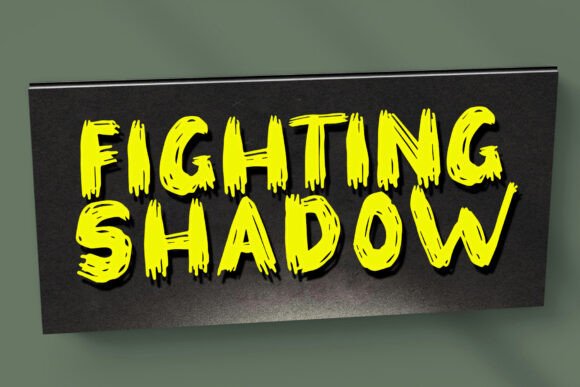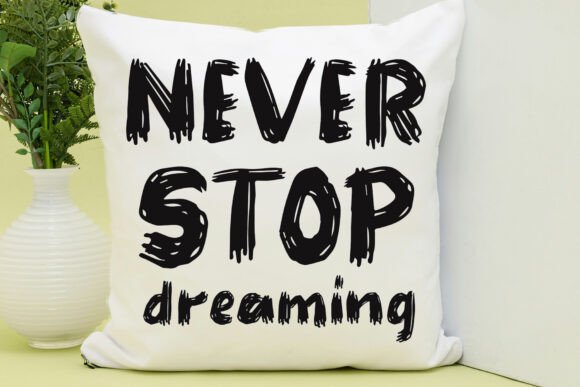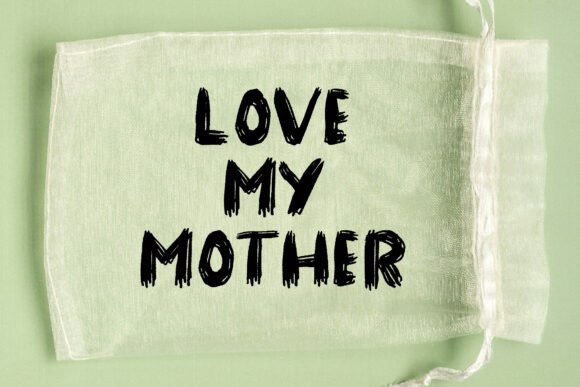
Introduction to Party Brush Font
Remember the feeling of getting lost in a sea of sketchbooks, pens, and paper as a child, letting your imagination run wild and unfettered? The Party Brush Font brings back that same carefree spirit, with its unique blend of classic charm and organic feel.
For designers looking to add a personal touch to their creative projects, this font is a treasure trove of inspiration. With its free download option and transparent background, it’s the perfect design resource to experiment with. Whether you’re working on a high-quality magazine layout or a quirky social media graphic, the Party Brush Font is sure to elevate your design game with its sophisticated yet playful vibe.
As a design enthusiast, you’ll appreciate the level of craftsmanship that has gone into creating this stunning font, making it a valuable addition to your design arsenal.
Key Features of Party Brush Font
- High-quality digital brush font with a playful, hand-painted design, perfect for creative projects and design resources.
- Includes a transparent background, allowing for easy customization and seamless integration into various design elements.
- Unique characteristics include subtle texture and imperfections, giving the font a organic, hand-crafted feel.
- Perfect for designers and artists working on creative projects, such as party invitations, social media graphics, and more.
Honest Review: Party Brush Font
As a designer, I’m always on the lookout for high-quality design resources to elevate my creative projects. Recently, I came across the Party Brush Font, and I’m excited to share my honest review.
What works well: ✨ The Party Brush Font is incredibly versatile, with a range of styles and weights that make it perfect for various design applications. The font is also highly customizable, allowing you to adjust the color, size, and spacing to suit your creative vision.
- High-quality design: The Party Brush Font is designed with precision and attention to detail, ensuring that it looks great in any format.
However, there are some limitations to consider: ⚠️ The font may not be suitable for complex or intricate designs, as it can appear pixelated or distorted in certain situations. Additionally, the customization options may not be as extensive as some other fonts on the market.
Overall, I’m impressed with the Party Brush Font’s versatility and high-quality design. While it may have some limitations, it’s an excellent choice for designers looking for a free and customizable font for their creative projects.
How to Use Party Brush Font
The Party Brush Font is a high-quality design resource perfect for any creative project. You can download it for free, giving you the flexibility to experiment with different designs without any financial constraints. The font features a transparent background, allowing you to easily combine it with other design elements.
To get the most out of the Party Brush Font, try experimenting with different font sizes, colors, and combinations. You can also use the font in conjunction with other design elements, such as graphics and images, to create unique and eye-catching designs.
The Party Brush Font is perfect for a variety of creative projects, including social media graphics, party invitations, and event branding. Its playful and creative feel makes it ideal for any project that requires a fun and energetic vibe.